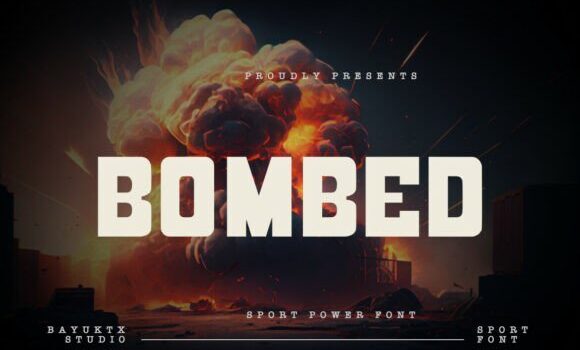
Bombed Font – Free Download Introduction to Bombed Font 💣 Bombed is an explosive, ultra-bold, all-caps display font built to convey extreme power, energy, and high impact. 📸 Preview Gallery 5 images 📌 Product Name Bombed Font 👤 Author Bayuktx